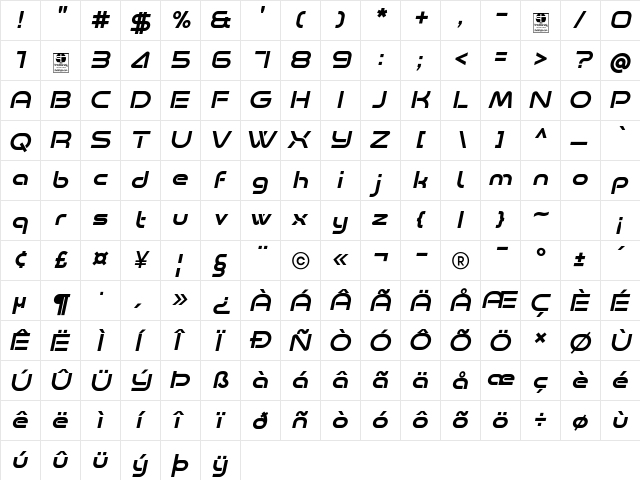
Minalis_Demo Italic
Design Context for Minalis_Demo Typeface
Minalis_Demo offers clean, dependable letterforms without strong stylistic allegiance, making it a practical choice for designers who need flexibility. Its italic angle brings a sense of urgency and motion to the letterforms.
Pro Tip: Use Minalis_Demo for emphasis, pull quotes, and subheadings where its slanted energy can add rhythm to the layout.